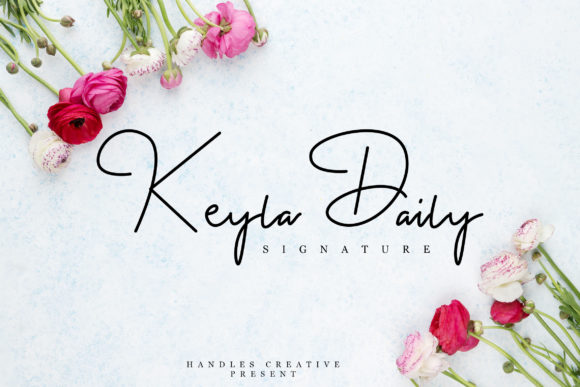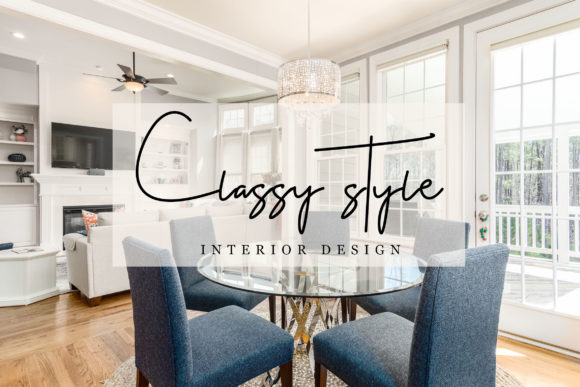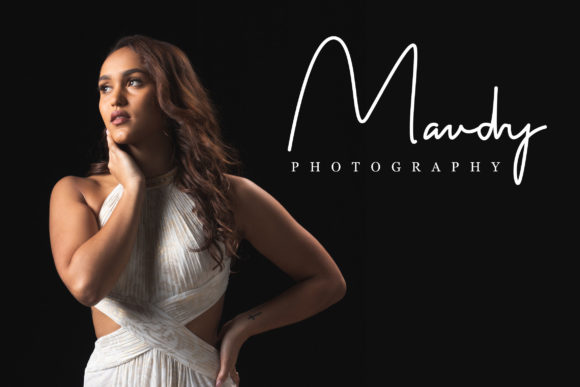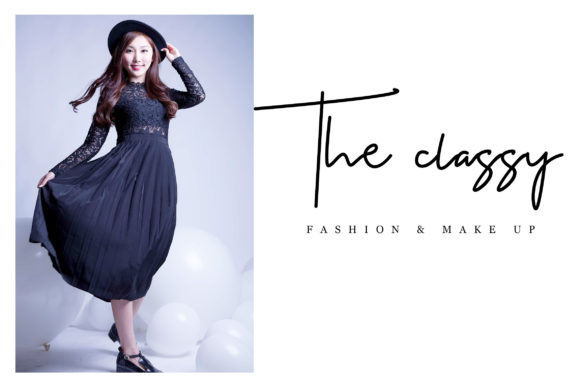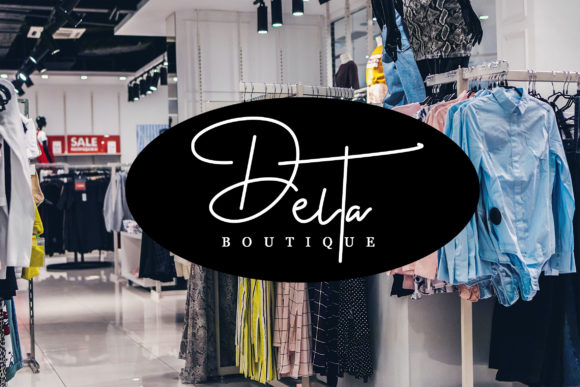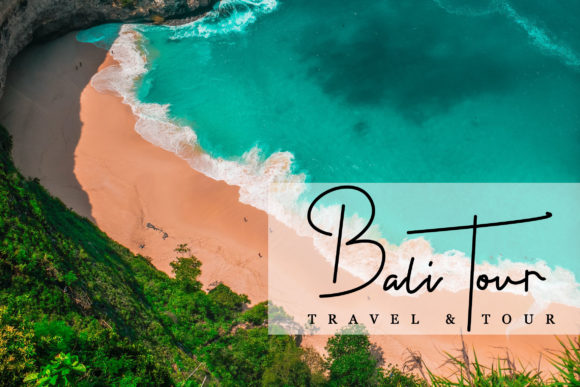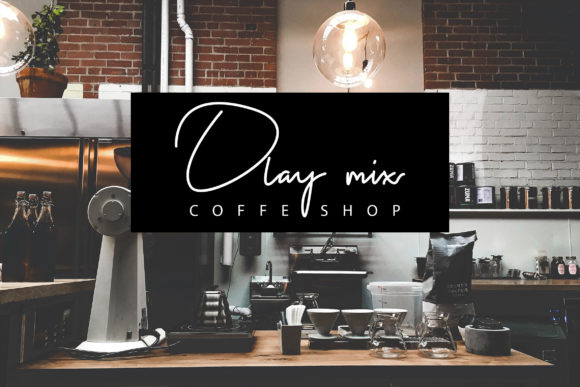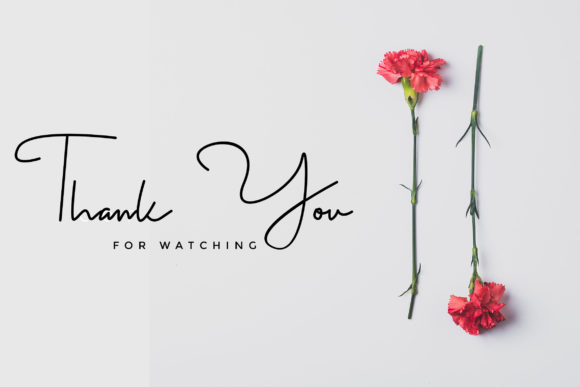
Keyla Daily Font
About Keyla Daily Font
Keyla Daily is a sweet and relaxed handwritten font. This gentle font will look gorgeous on a variety of design ideas. It will add a joyful and romantic touch to each of your projects!